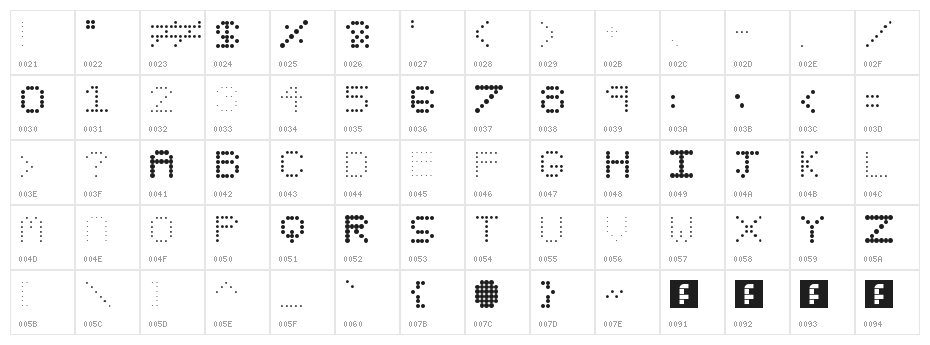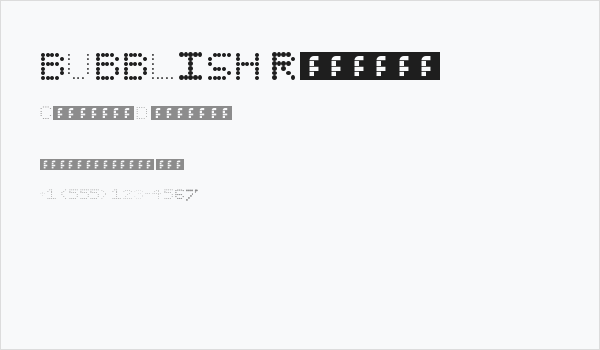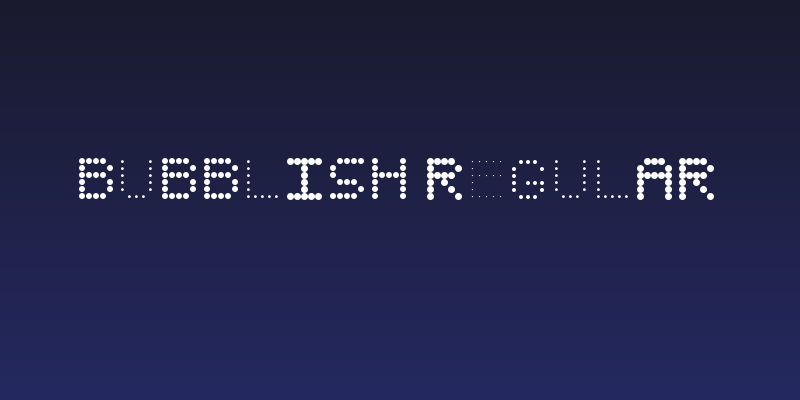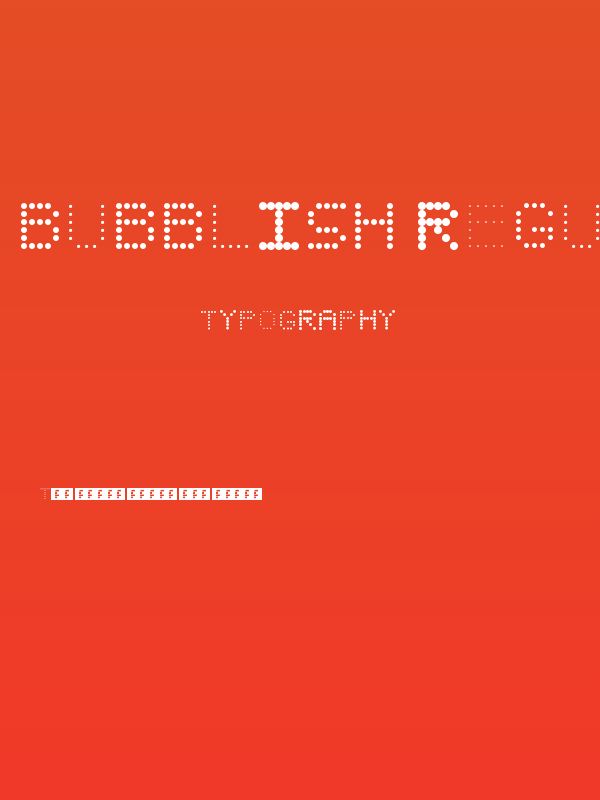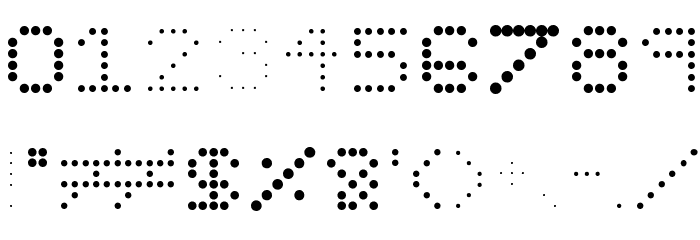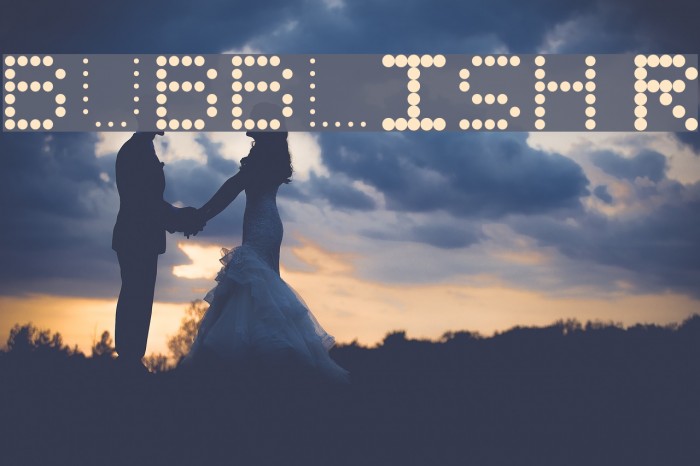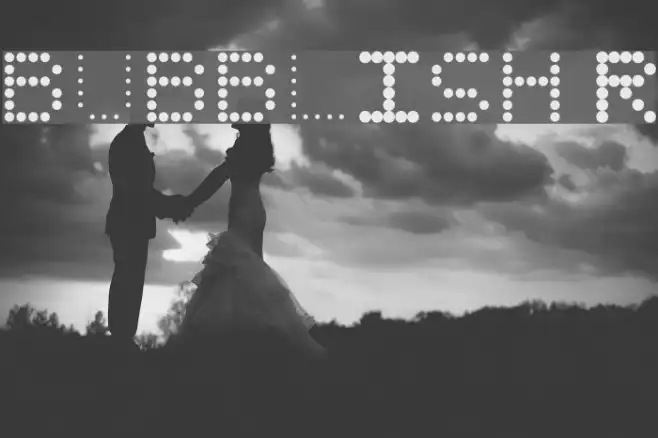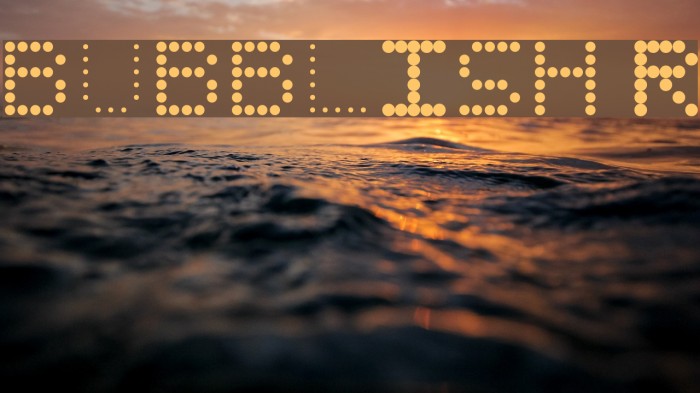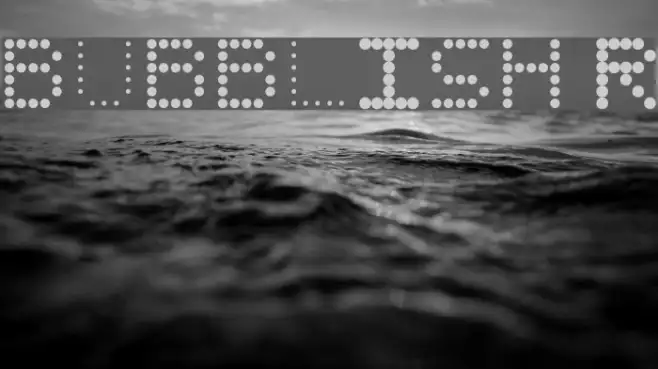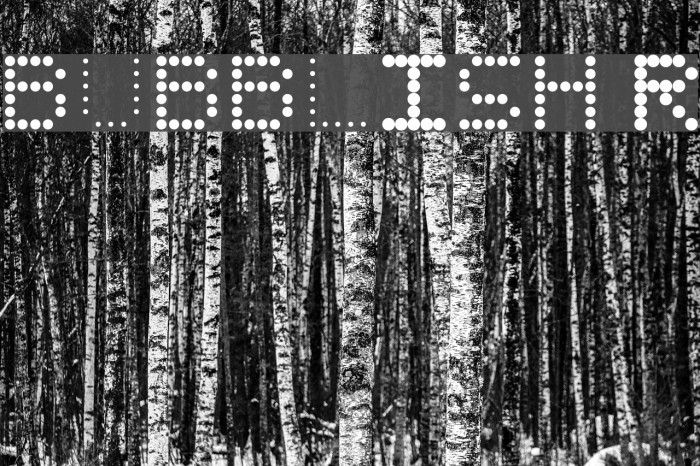
BUBBLISH Regular Font
BUBBLISH Regular Description
This playful and unique font is characterized by its dotted, bubble-like appearance. Each character is composed of a series of evenly spaced dots, creating a whimsical and eye-catching effect. The font maintains a consistent structure across all letters and numbers, making it both cohesive and distinctive. Its rounded, bubbly design lends a sense of fun and creativity, perfect for projects that aim to capture attention and convey a lighthearted tone. The font's uniform dot pattern ensures readability while adding a decorative touch.